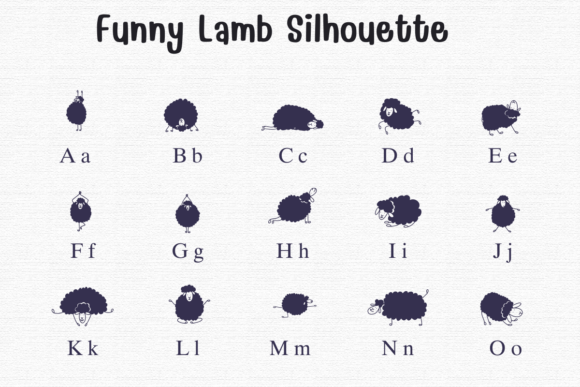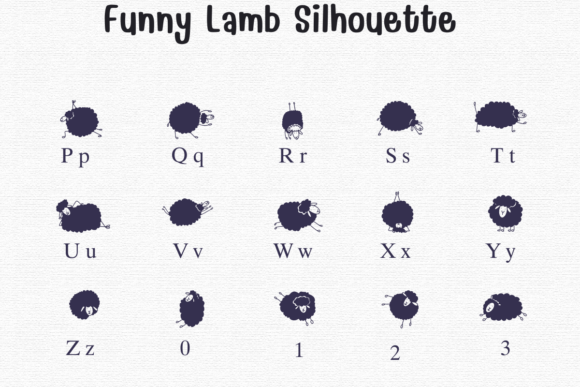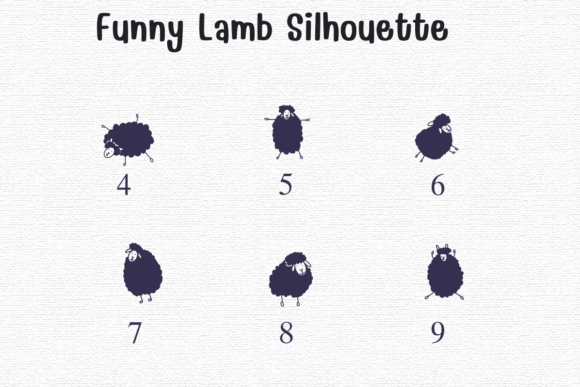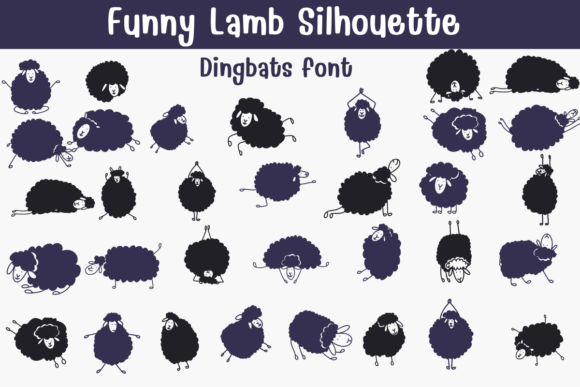
Introduction to Funny Lamb Silhouette Font
Key Features of Funny Lamb Silhouette Font
Why Choose Funny Lamb Silhouette Font?
Funny Lamb Silhouette Font offers exceptional quality and versatility, making it a valuable addition to your design toolkit. Whether you’re creating for personal projects or commercial use, Funny Lamb Silhouette Font delivers professional results.